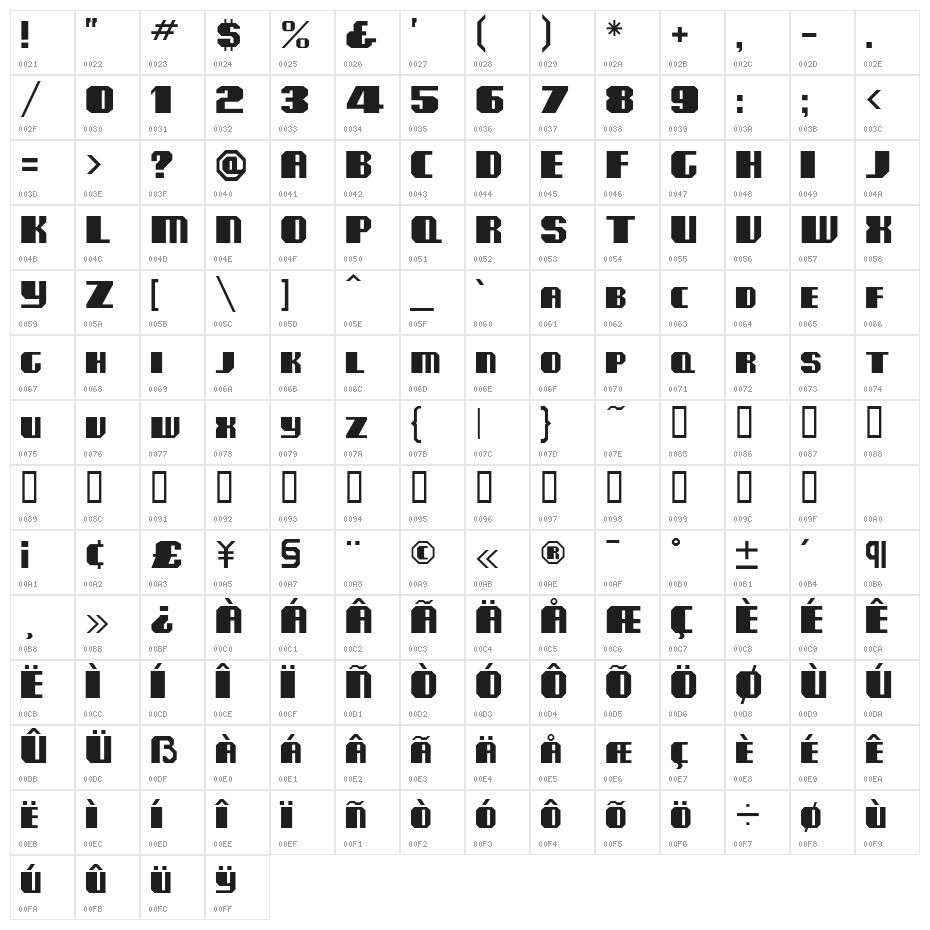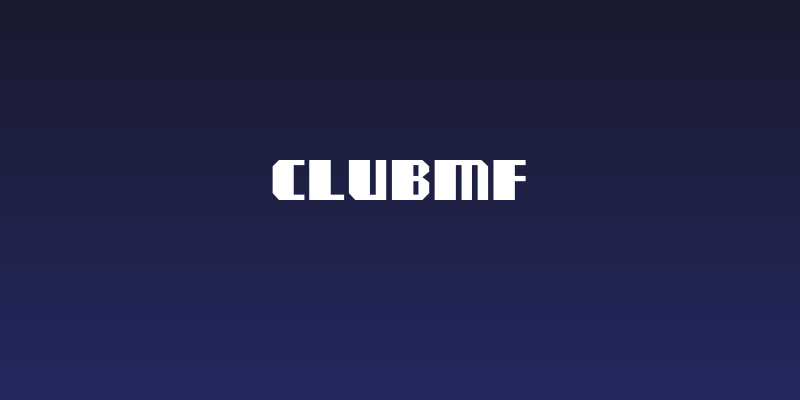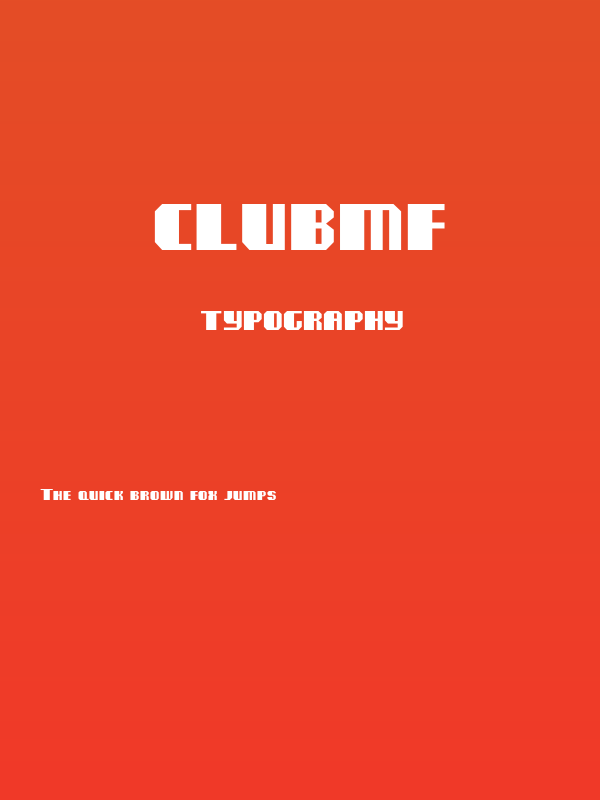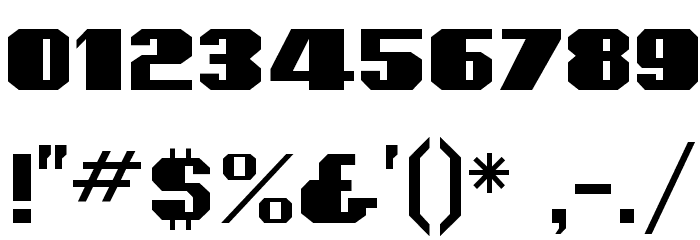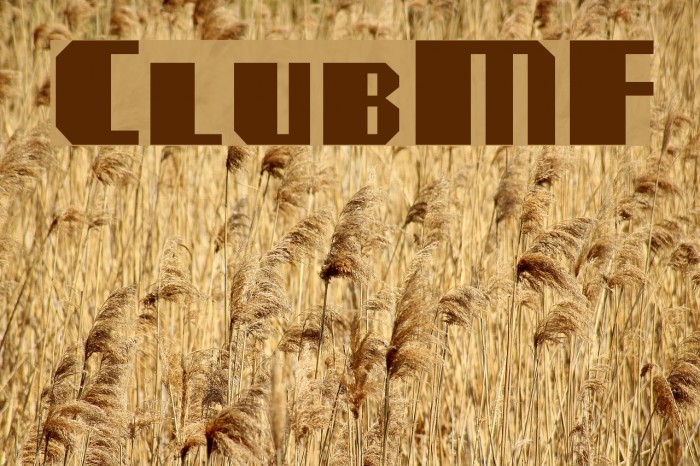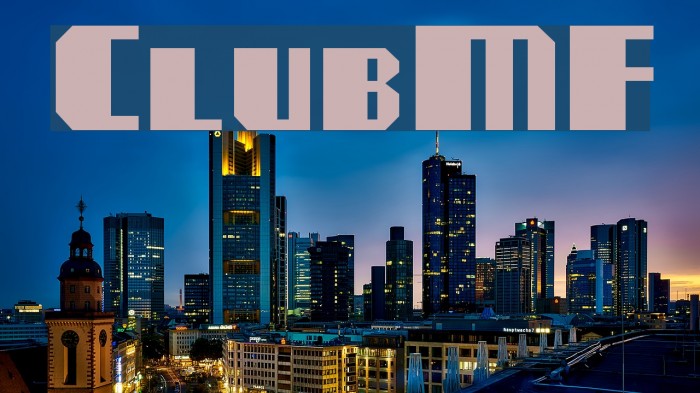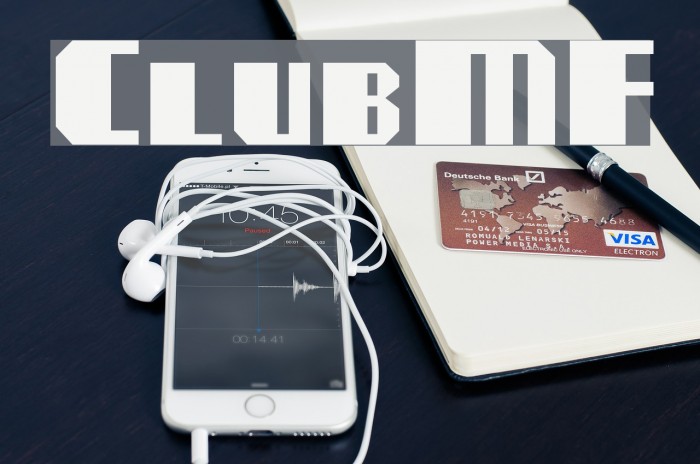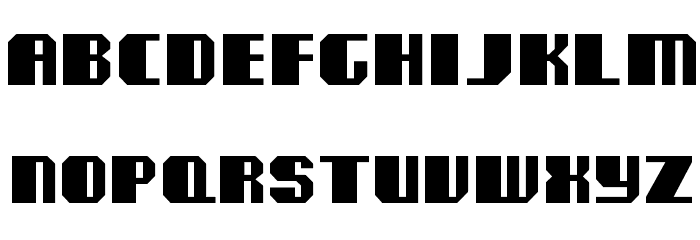
ClubMF Font
ClubMF Description
This bold and striking font features a geometric, blocky design that commands attention. The uppercase letters are characterized by their angular, sharp edges, creating a sense of strength and modernity. The lowercase letters maintain this geometric style, ensuring consistency throughout. Numbers and special characters are equally bold, with a design that complements the alphabetic characters. The font's strong visual impact makes it ideal for projects that require a bold statement.
| Proposed Projects | Ideal for branding, posters, headlines, and any design needing a strong, modern look. |